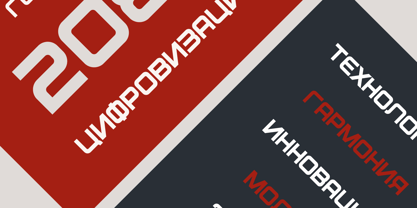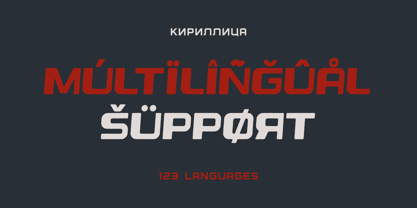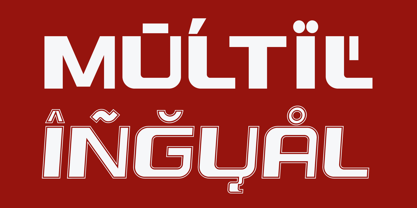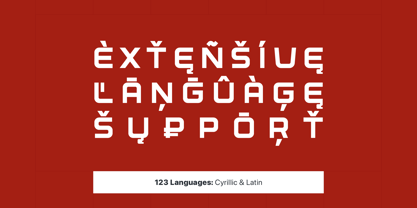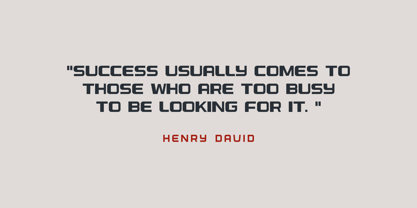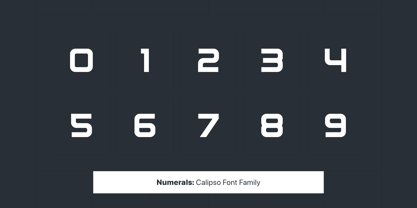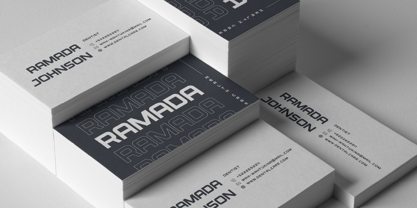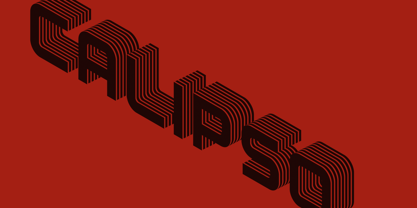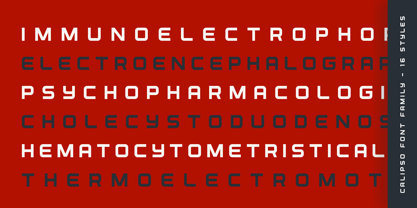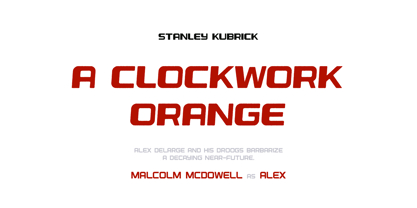
Calipso
by AlperCakici
The Calipso Font Family was designed by Alper Çakıcı and published by AlperCakici. Calipso contains 16 styles and family package options.
Calipso is a geometric and futuristic display font family crafted for bold, high-impact typography. Featuring 16 styles, including Regular, Inline, Outline, Italic, and Rough variations, Calipso provides exceptional versatility for modern branding, sci-fi posters, tech logos, UI design, and cinematic titles. Supporting 123 languages (Extended Latin & Cyrillic), Calipso presents a clean yet powerful aesthetic, making it ideal for projects that require a minimal, digital, and innovative appearance. Whether utilized for web, print, or motion design, Calipso’s precise geometry and expanded forms ensure it stands out in any creative environment. Perfect for: – Tech brands & startups – Futuristic or sci-fi design projects – Gaming, film titles & UI headers – Posters, websites, and digital media.